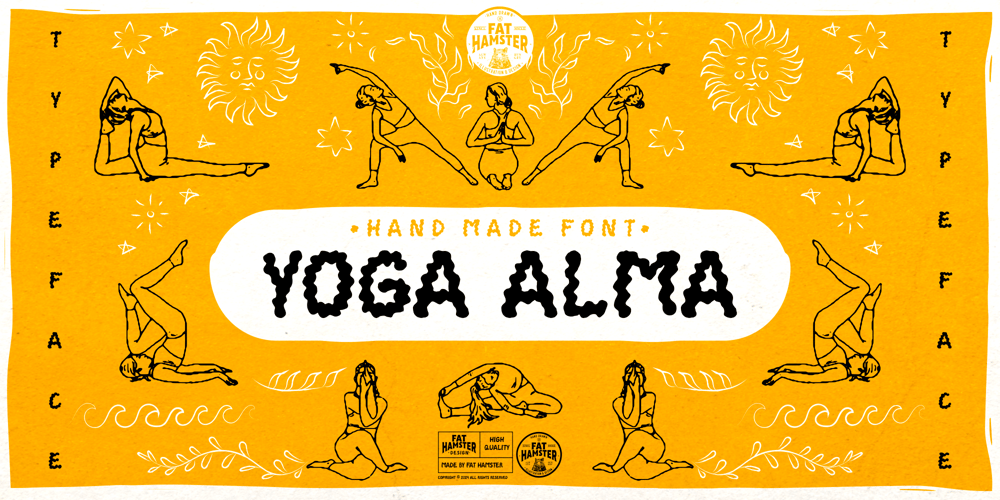
Yoga Alma Font Family was designed by Alesia Kutsian, Aliaksei Hvozdzeu and published by Fat Hamster. Yoga Alma contains 1 styles and family package options. Hand-crafted “Yoga Alma” font is flowing, expressive, unique, and playful that embodies the essence of yoga. This wavy font is designed to resemble the flowing lines and curves of the human body, with each letterform inspired by the movements and shapes of various yoga poses.This type is suitable for making clothing brand, logo and brand design, quotes, website and social media design, beautiful and vibrant lifestyle images.